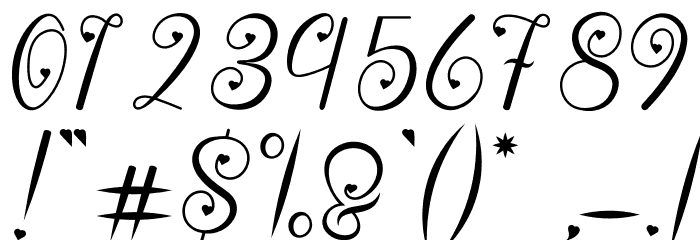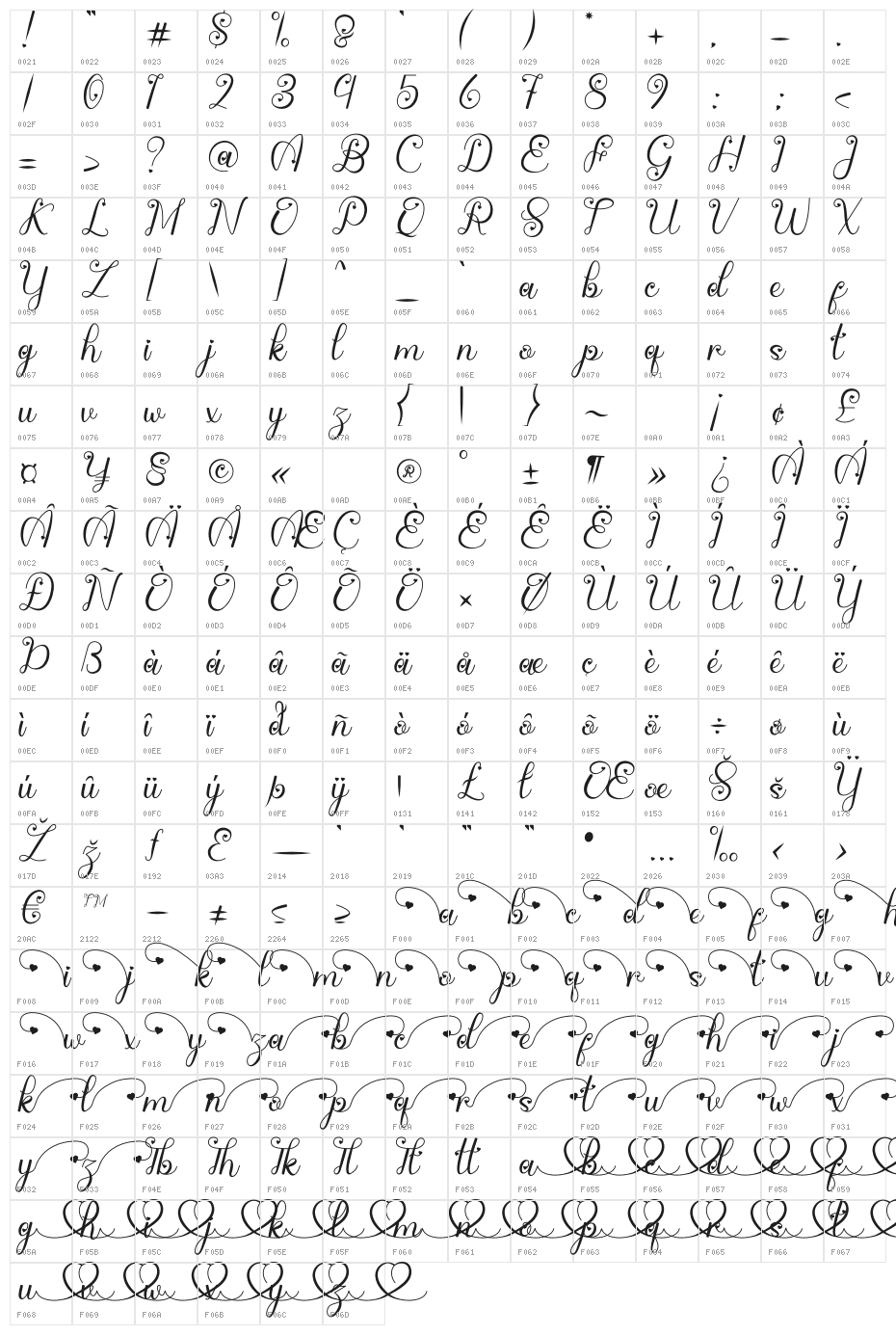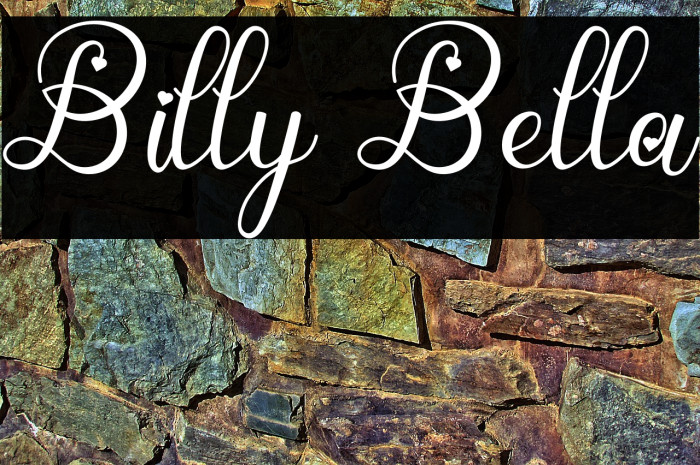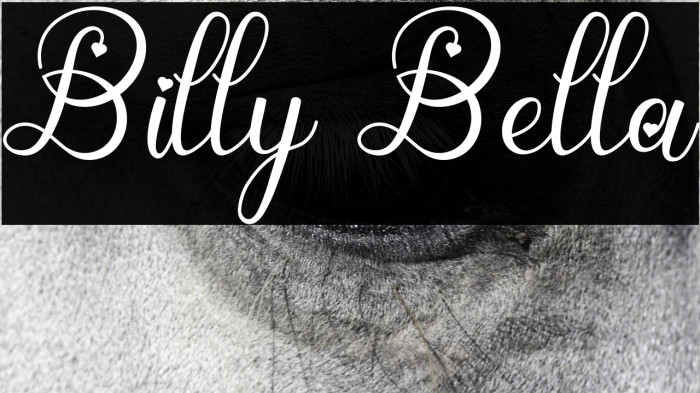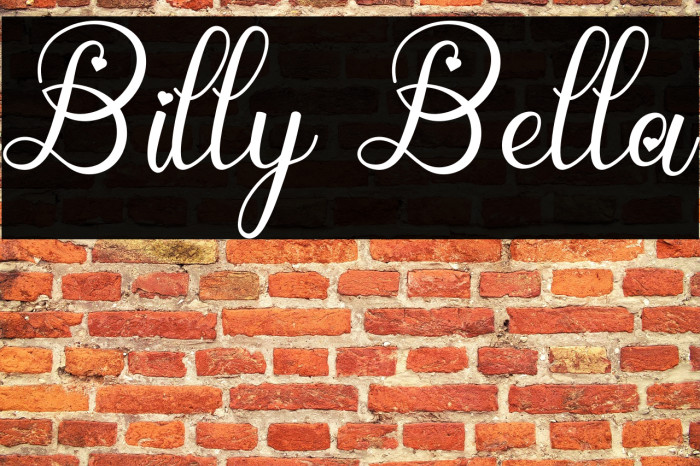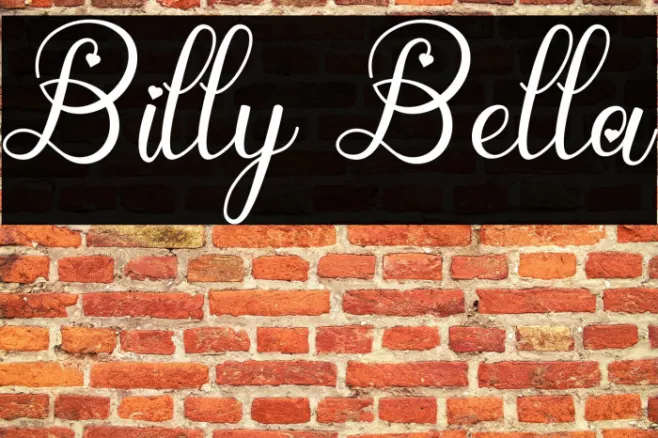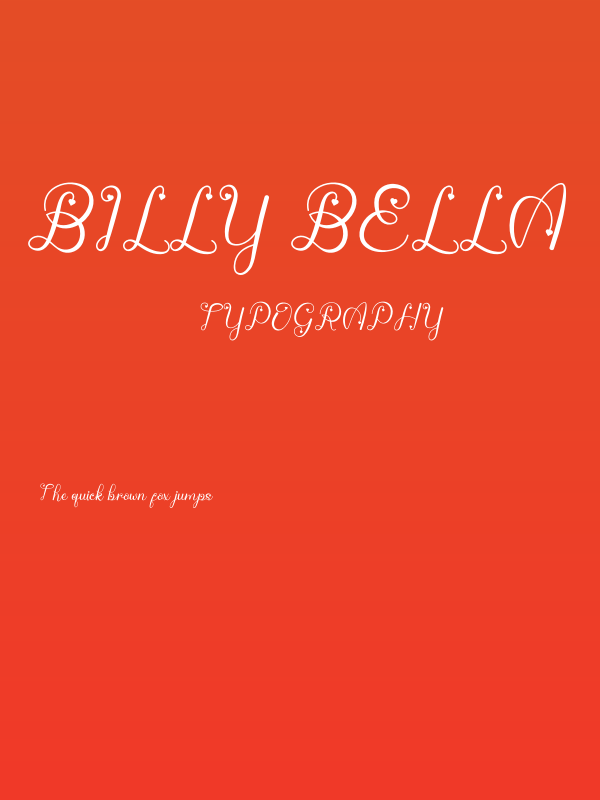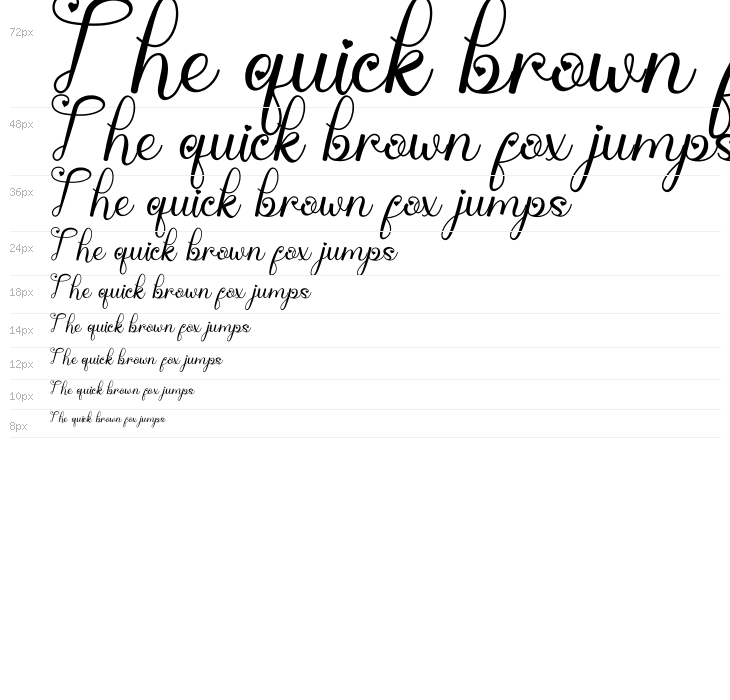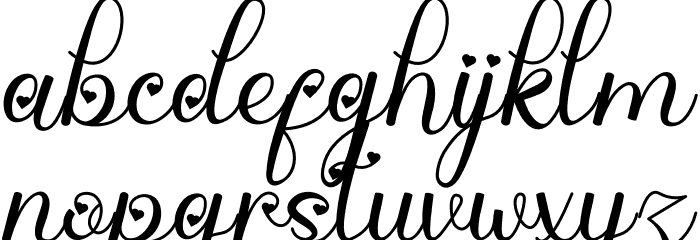
Billy Bella Font
Billy Bella Description
This font features an elegant and flowing script style, characterized by its smooth, cursive letterforms and decorative swashes. The uppercase letters are particularly ornate, with loops and flourishes that add a sense of sophistication and grace. The lowercase letters maintain a consistent flow, making them highly readable while still retaining a stylish flair. Numbers and special characters are designed to match the overall aesthetic, with similar curves and embellishments. This font is perfect for projects that require a touch of elegance and personality.